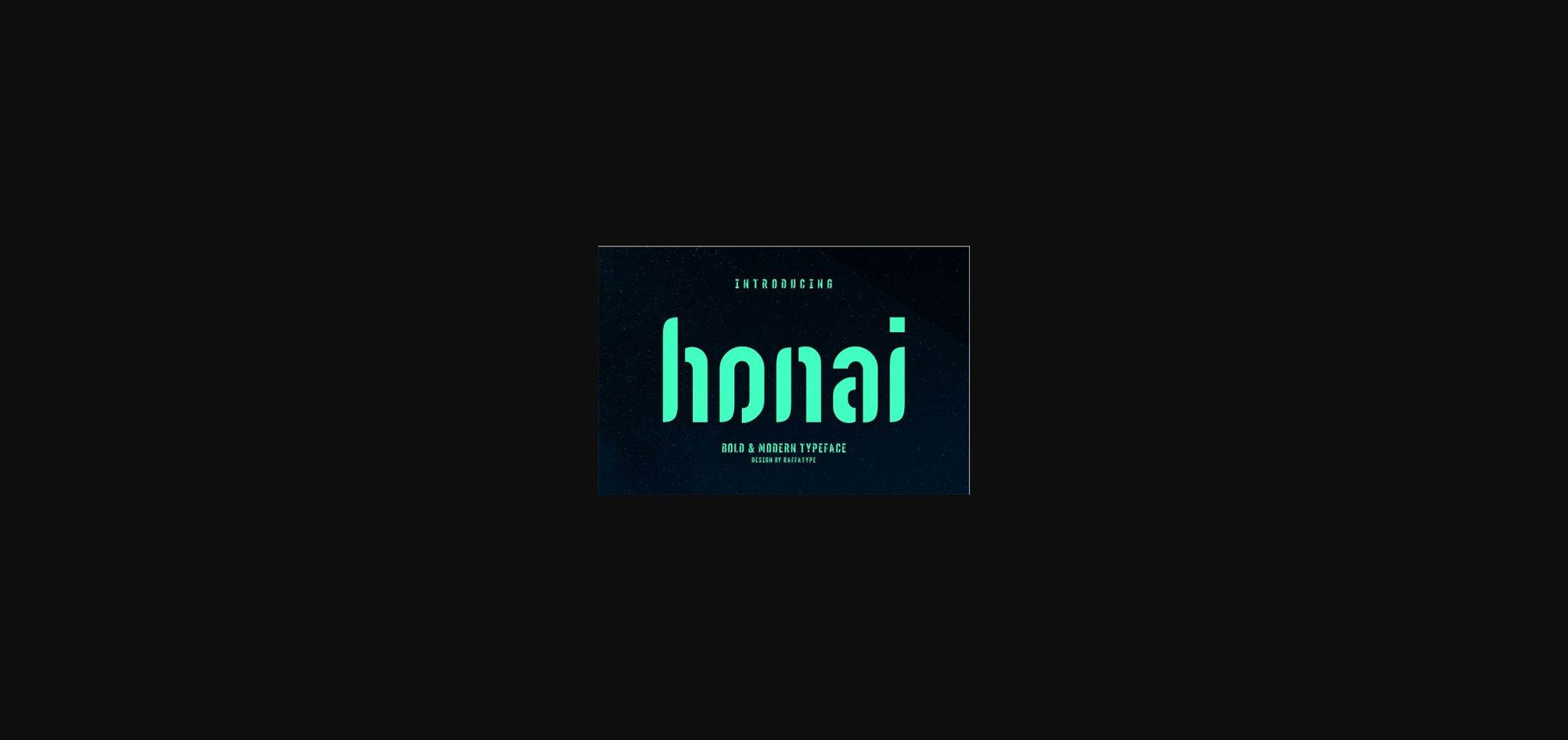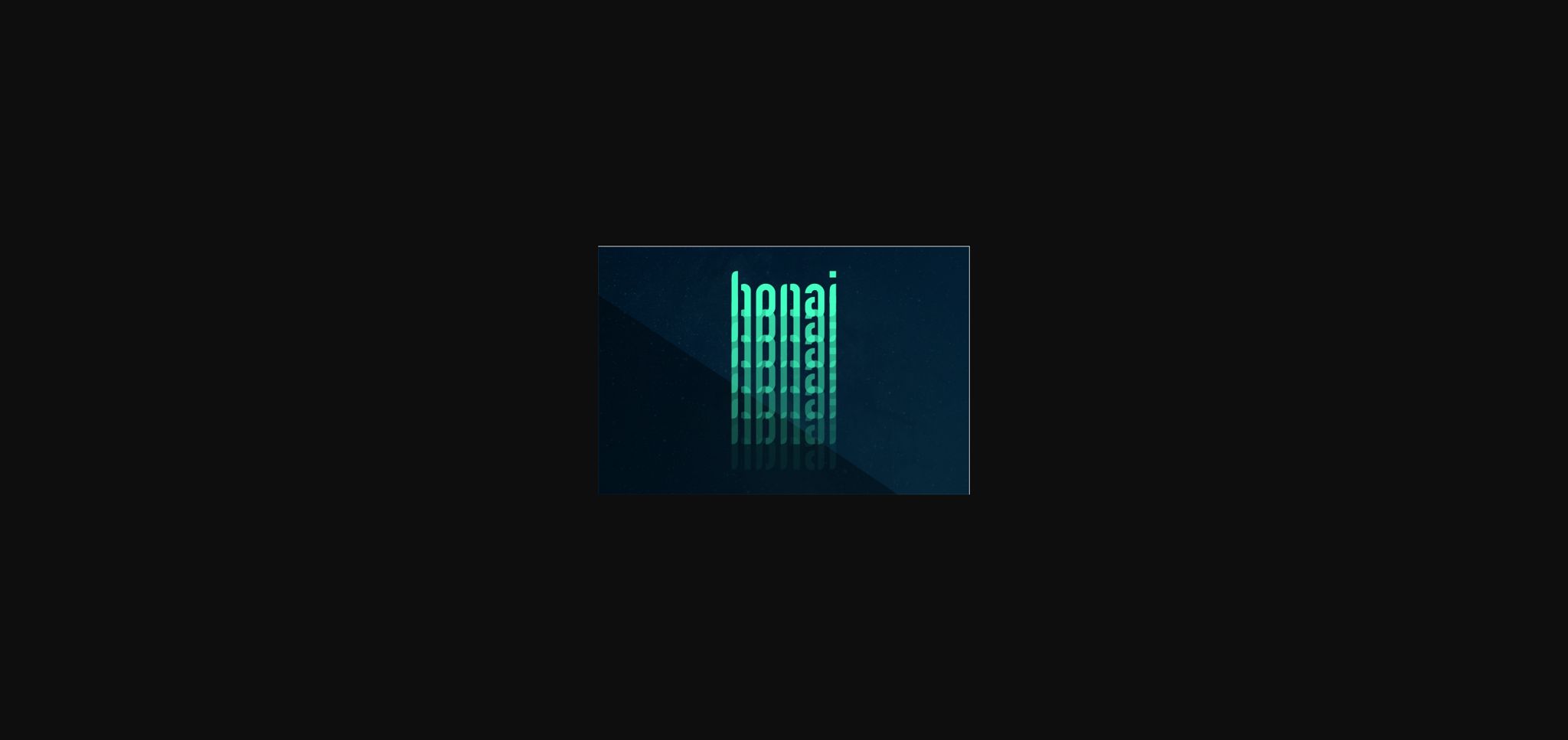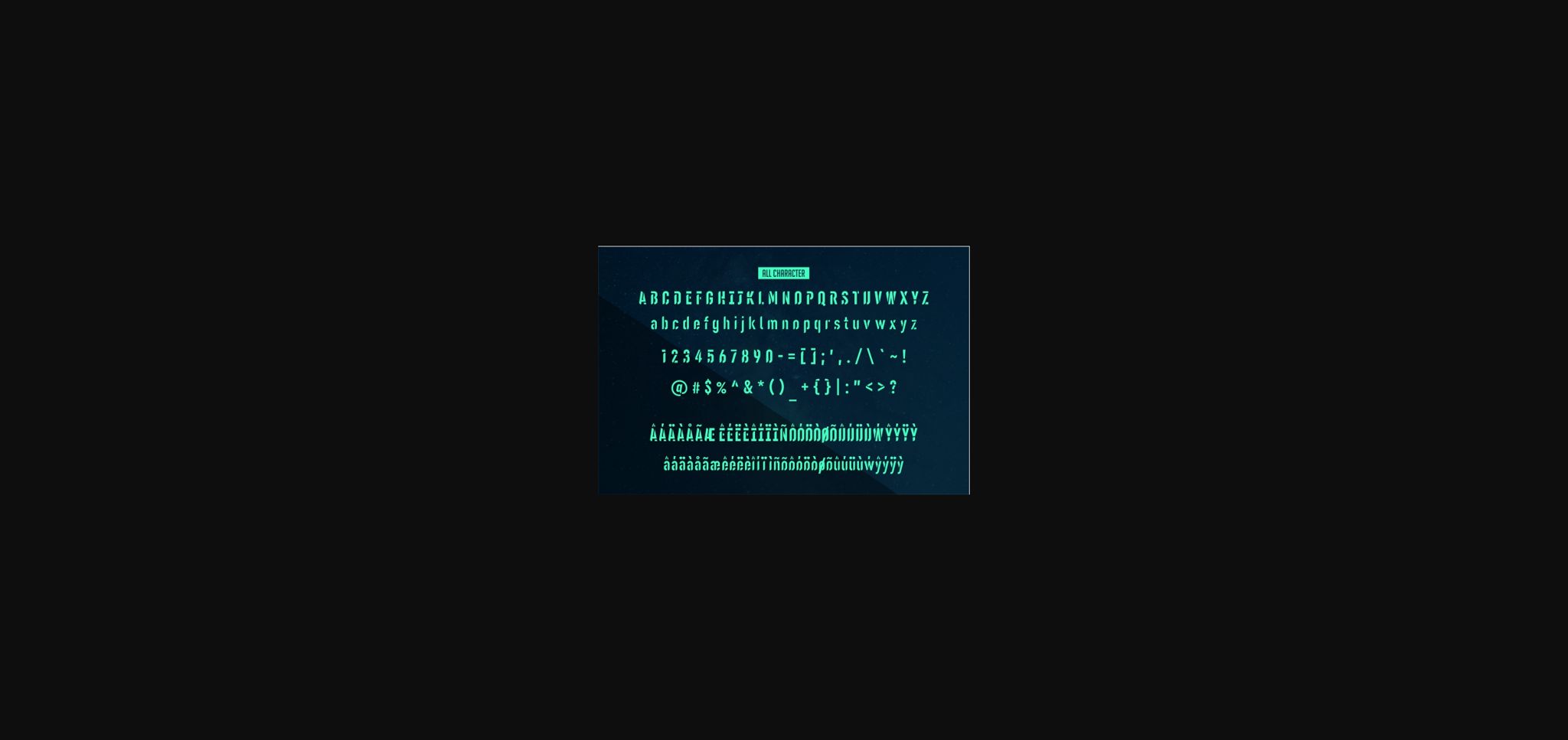
Honai Font
About Honai Font
Honai embodies fun, quirkiness and authenticity. This enchanting sans serif font will turn any creative idea into a true standout.